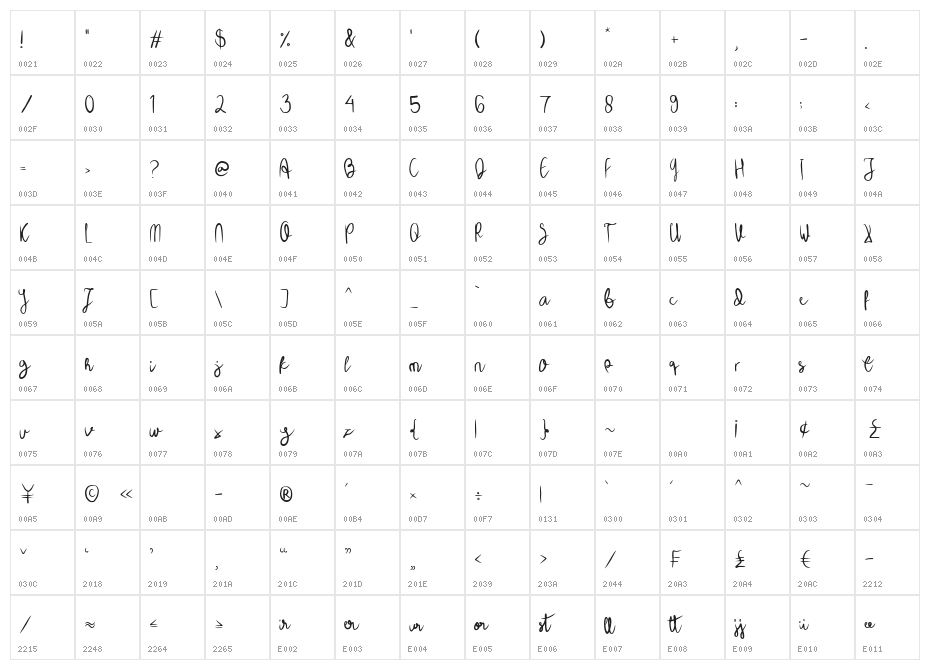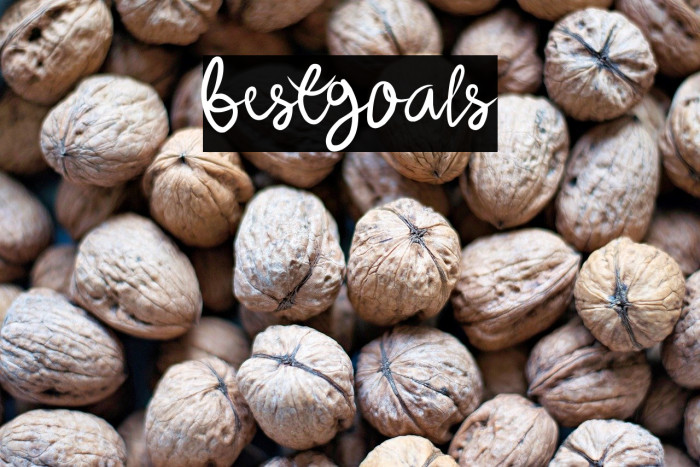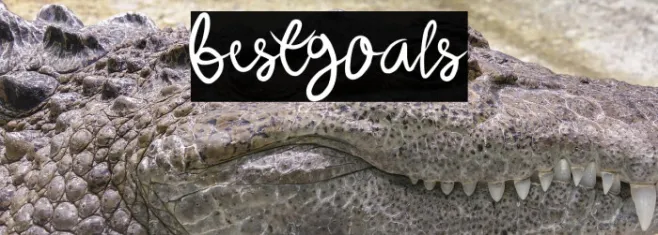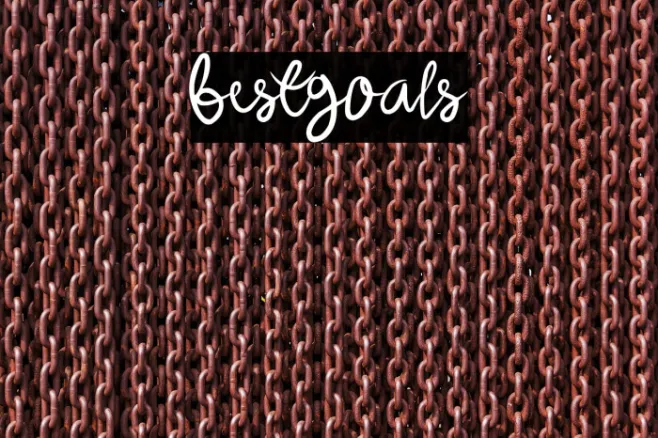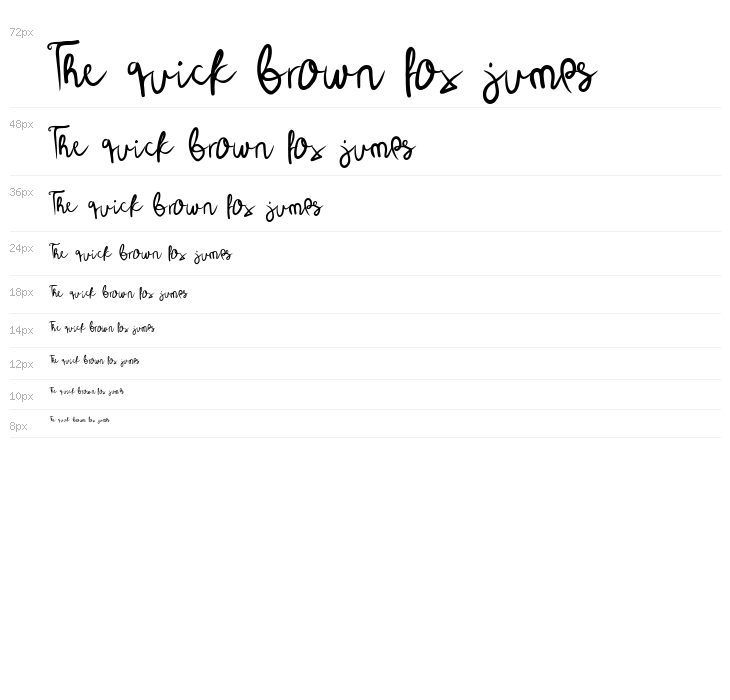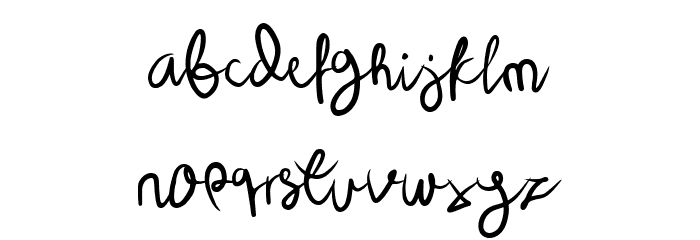
bestgoals Font
bestgoals Description
This font exhibits a playful and whimsical style, characterized by its flowing, cursive-like script. The letters are interconnected, creating a sense of movement and fluidity. The strokes are moderately thick, providing a bold appearance while maintaining elegance. The uppercase letters are slightly taller than the lowercase, adding a dynamic contrast. The numerals are consistent with the overall style, featuring rounded edges and a similar flow. Special characters are integrated seamlessly, maintaining the font's cohesive look. This font is ideal for projects that require a personal touch, such as invitations, greeting cards, or branding materials that aim to convey creativity and warmth.
| Overall Style | Whimsical |
| Proposed Projects | Ideal for invitations, greeting cards, personal branding, and creative projects. |